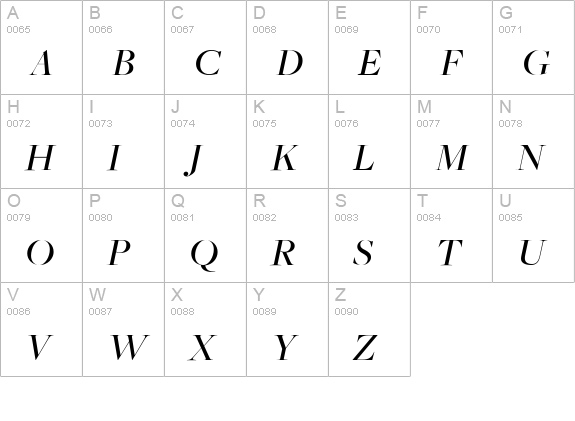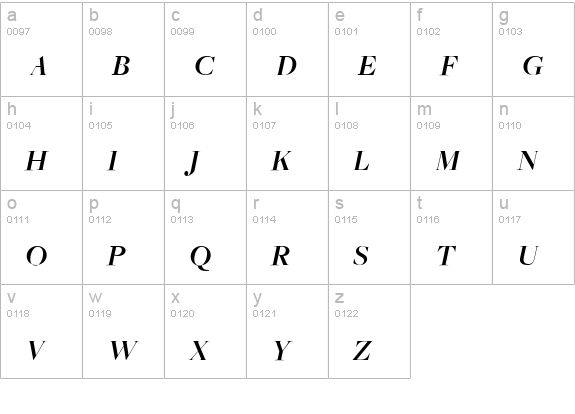
FreightBigMediumItalicSC Font Details
FreightBigMediumItalicSC is a versatile and modern font that exudes sophistication and style. Its sleek and elegant design makes it perfect for a wide range of projects, from branding to editorial design. The italic style adds a touch of flair and dynamism to any text, making it stand out and grab the reader's attention. What's even better is that FreightBigMediumItalicSC is available for free download at FontsMarket.com. This means you can easily access this high-quality font without any cost, making it a valuable addition to your font collection. Don't miss out on the opportunity to enhance your designs with the beautiful and stylish FreightBigMediumItalicSC font, available for free at FontsMarket.com.